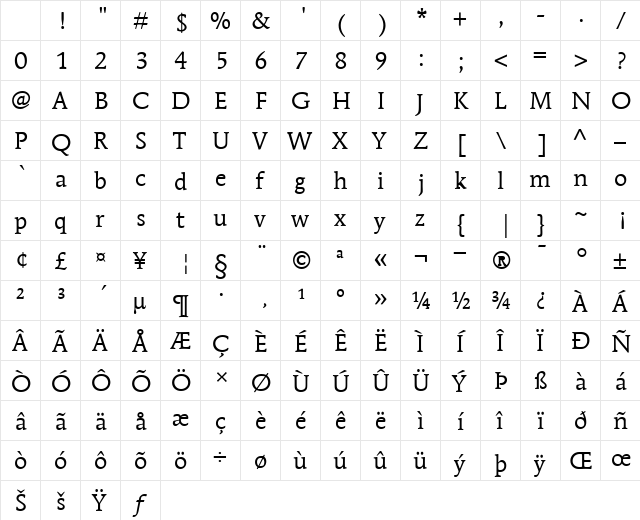
Complete ITCMendozaRoman- Book glyph index. Displaying only characters natively supported by ITCMendozaRoman- Book font.
ITCMendozaRoman- is a composed and adaptable typeface that performs quietly and consistently across a wide range of design contexts.